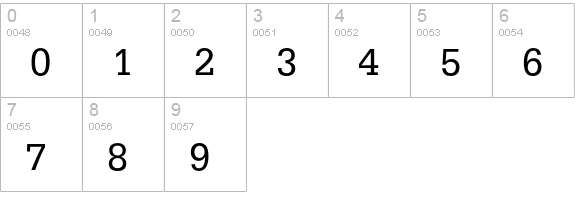
Serifa font is a visually stunning typeface that effortlessly blends elegance and sophistication. Its timeless design captures the essence of classic typography, making it the perfect choice for a wide range of projects. With its clean lines and balanced proportions, Serifa font exudes a sense of professionalism and refinement. This versatile font is ideal for both print and digital applications, adding a touch of class to any design. Whether used for logos, headlines, or body text, Serifa font commands attention and brings a sense of authority to your work. One of the most remarkable aspects of Serifa font is that it is free. Yes, you read that correctly. This exceptional font is freely available to download at FontsMarket.com. This means that you can enhance your creative endeavors without any cost, making it an invaluable resource for designers, artists, and anyone seeking high-quality typography. The free availability of Serifa font allows designers to explore its endless possibilities and unleash their creativity without limitations. Its extensive character set ensures compatibility with various languages, making it a truly global typeface. FontsMarket.com provides a convenient platform to access Serifa font and countless other premium fonts. Their user-friendly website allows you to browse and download fonts effortlessly, ensuring a seamless experience for all users. In conclusion, Serifa font is a stunning typeface that combines elegance and versatility. Its free availability on FontsMarket.com makes it a go-to choice for designers seeking high-quality typography without the burden of cost. Enhance your projects with the timeless beauty of Serifa font and let your creativity soar.